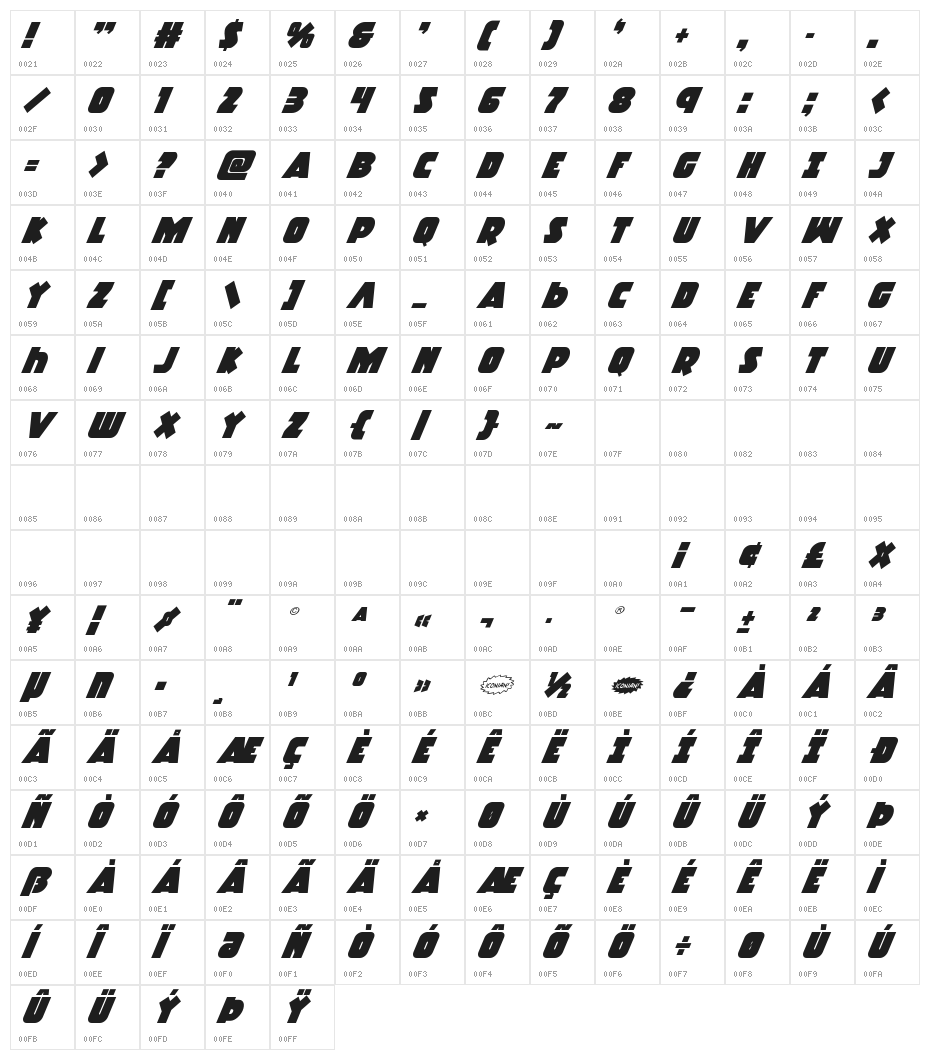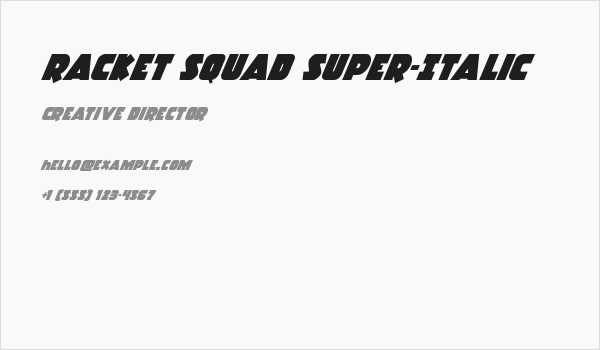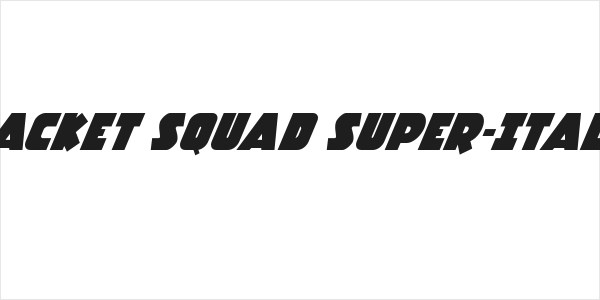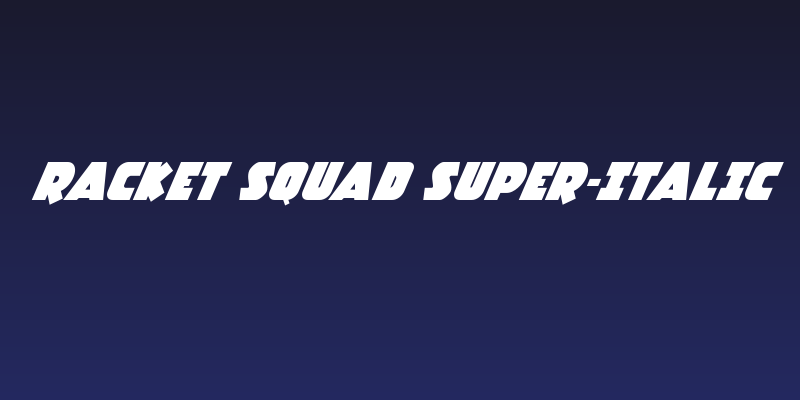
Racket Squad Super-Italic Font
Racket Squad Super-Italic Description
This font features a bold and dynamic style with a strong italic slant, giving it a sense of motion and energy. The characters are thick and robust, with sharp angles and a slightly condensed form that enhances its striking appearance. The uppercase and lowercase letters maintain a consistent design, ensuring readability while adding a unique flair. The numerals and special characters follow the same bold and angular style, making them stand out effectively. This font's distinctive look is perfect for projects that require a powerful and attention-grabbing typeface.